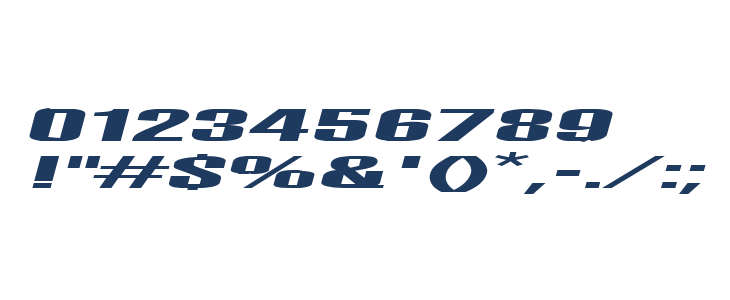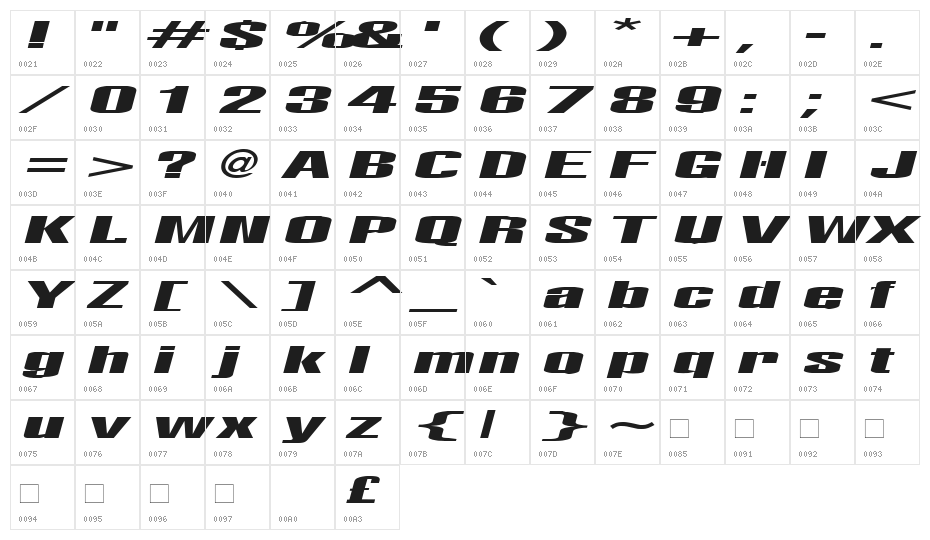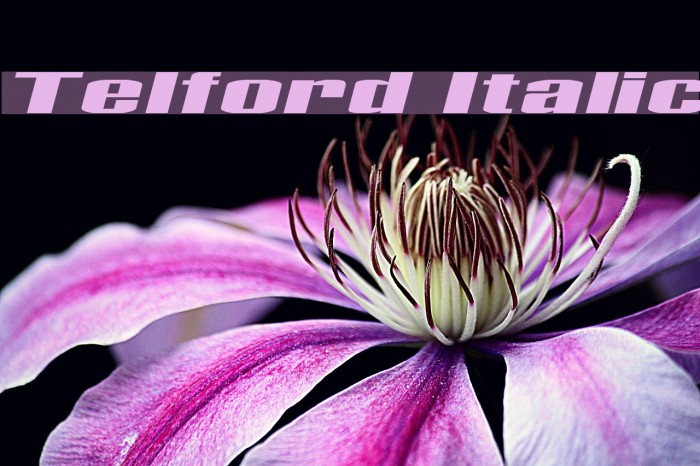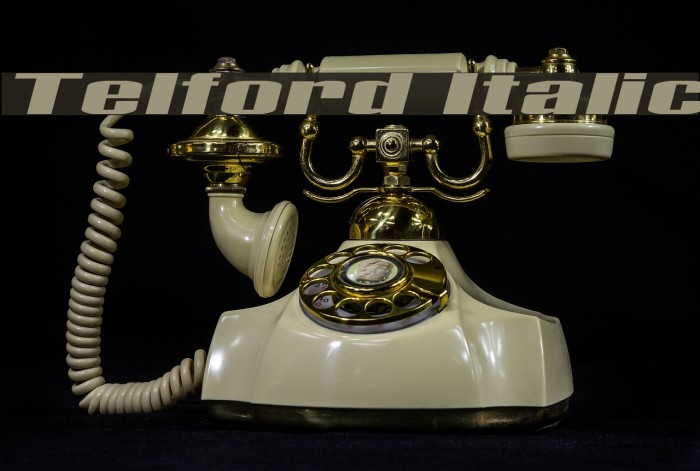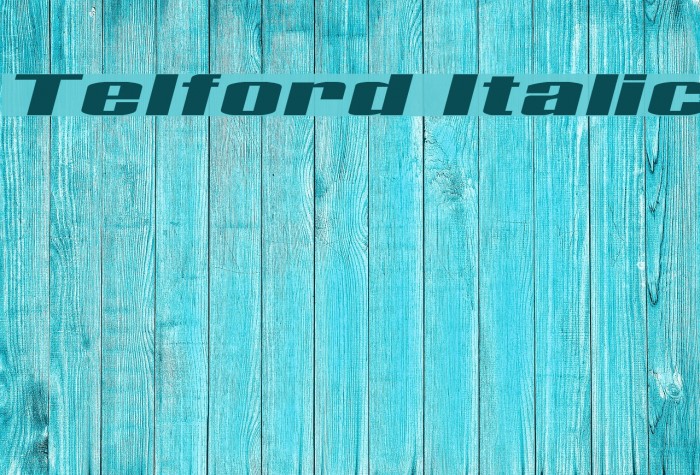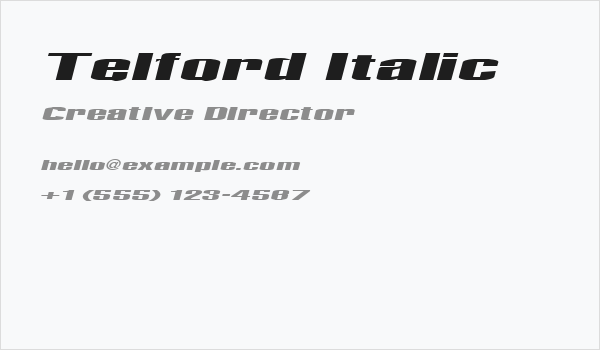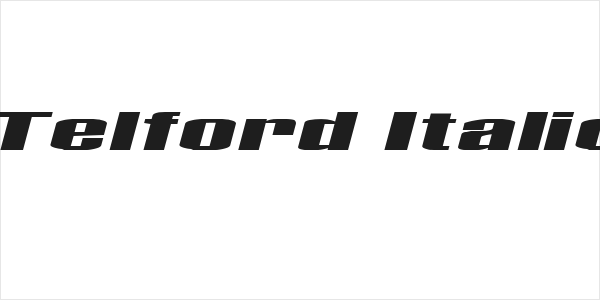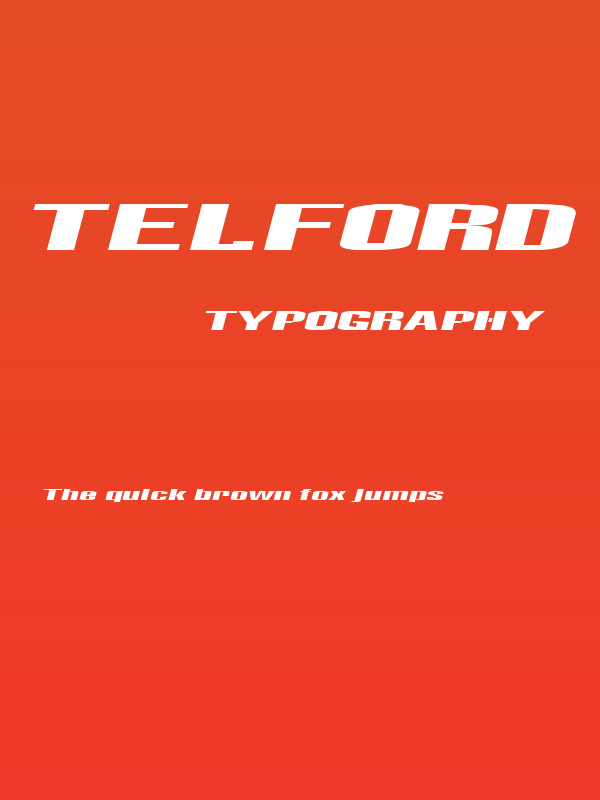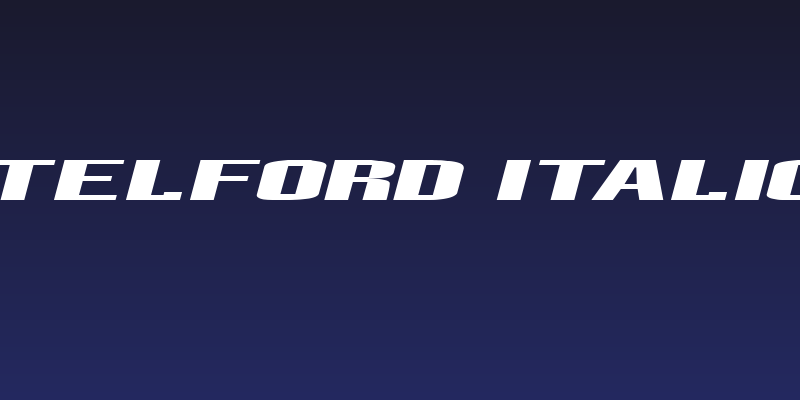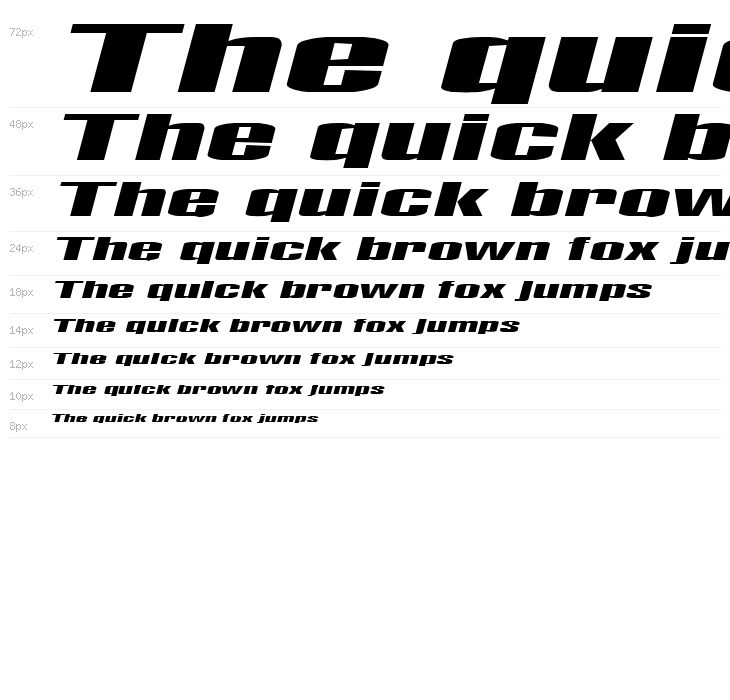
Telford Italic Font
Telford Italic Description
This font exhibits a bold and dynamic style with a pronounced italic slant, giving it a sense of motion and energy. The characters are robust and impactful, with thick strokes that maintain consistency throughout the alphabet. The uppercase letters are particularly striking, with a strong presence that commands attention. The lowercase letters follow suit, maintaining the same boldness and slant, ensuring uniformity across the typeface. The numerals and special characters are equally bold, designed to stand out and complement the overall aesthetic. The font's design is modern and sleek, making it suitable for projects that require a strong visual impact.
| Proposed Projects | Ideal for branding, advertising, sports team logos, and any project needing a bold, energetic typeface. |